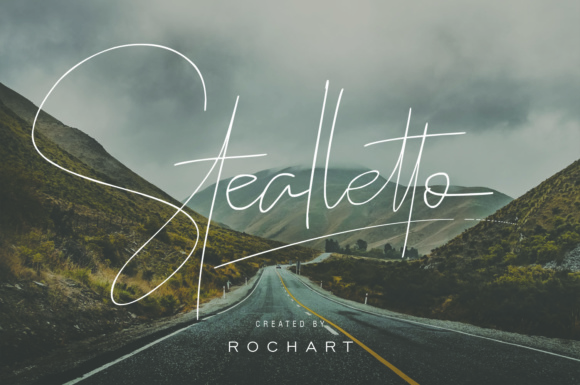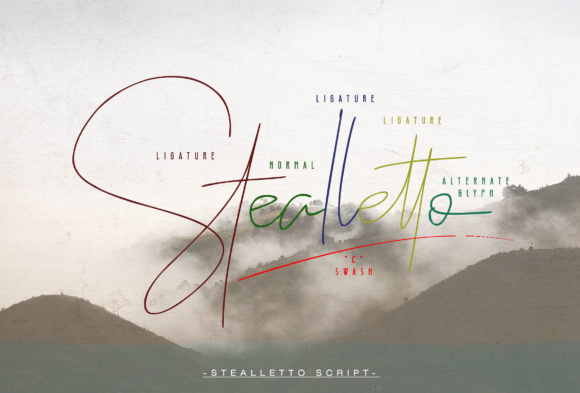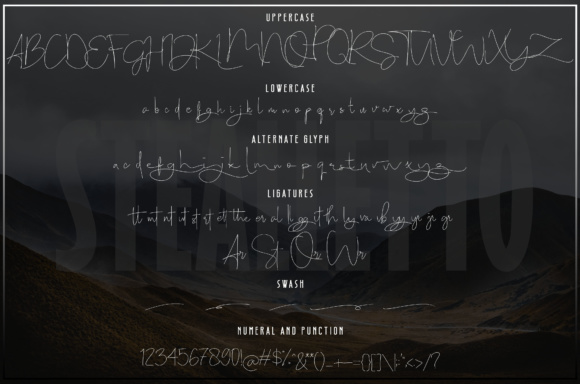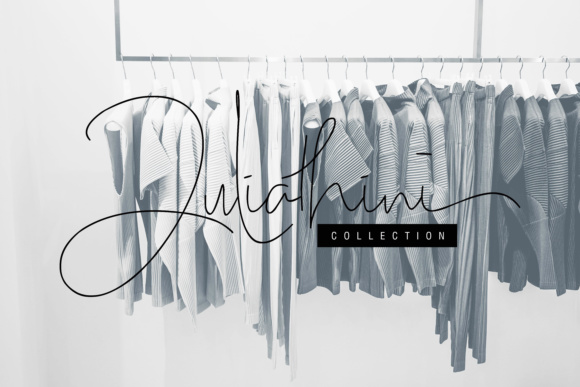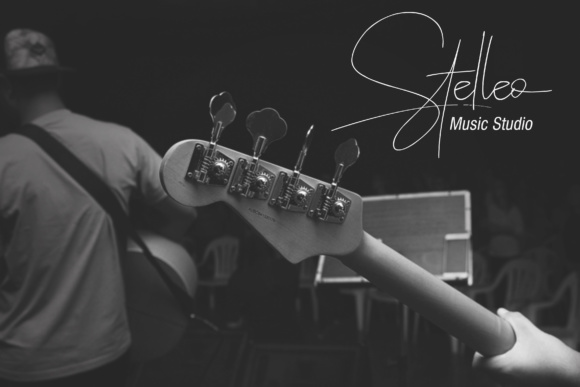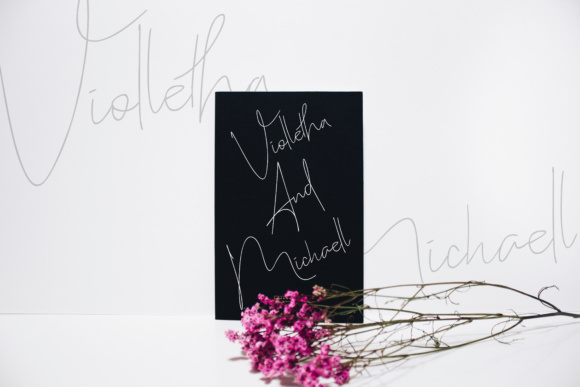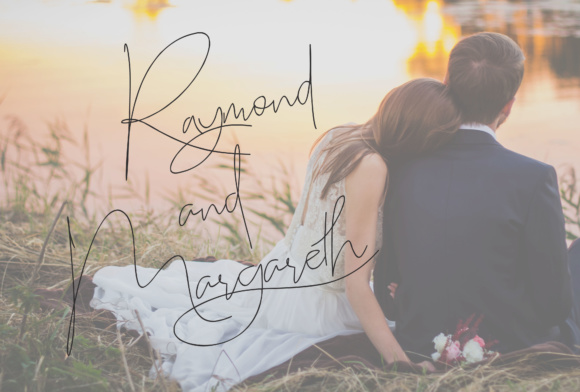
Stealletto Font
About Stealletto Font
Stealletto is a gorgeous, thin script font that will add some charm and delight to your work. This sketchy, casual looking font can add some modernity and style to your designs.